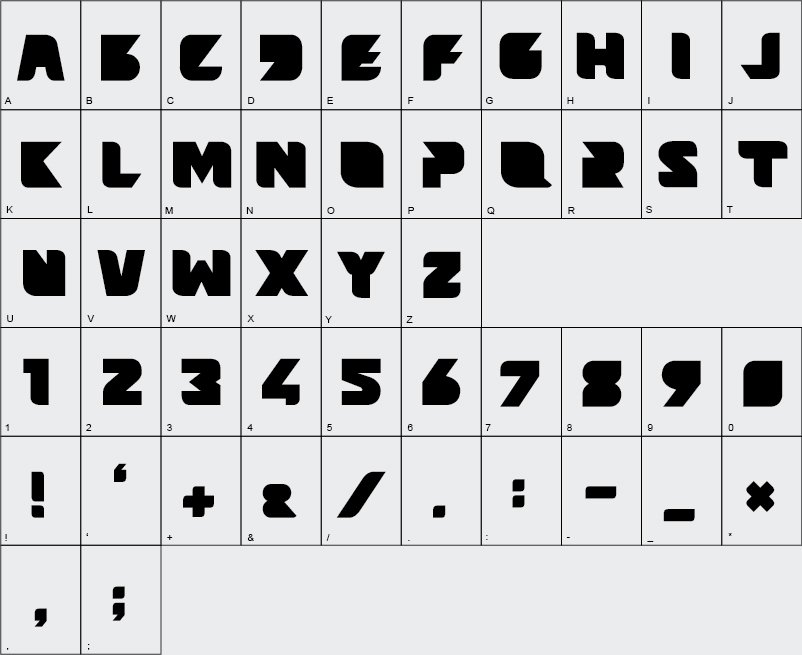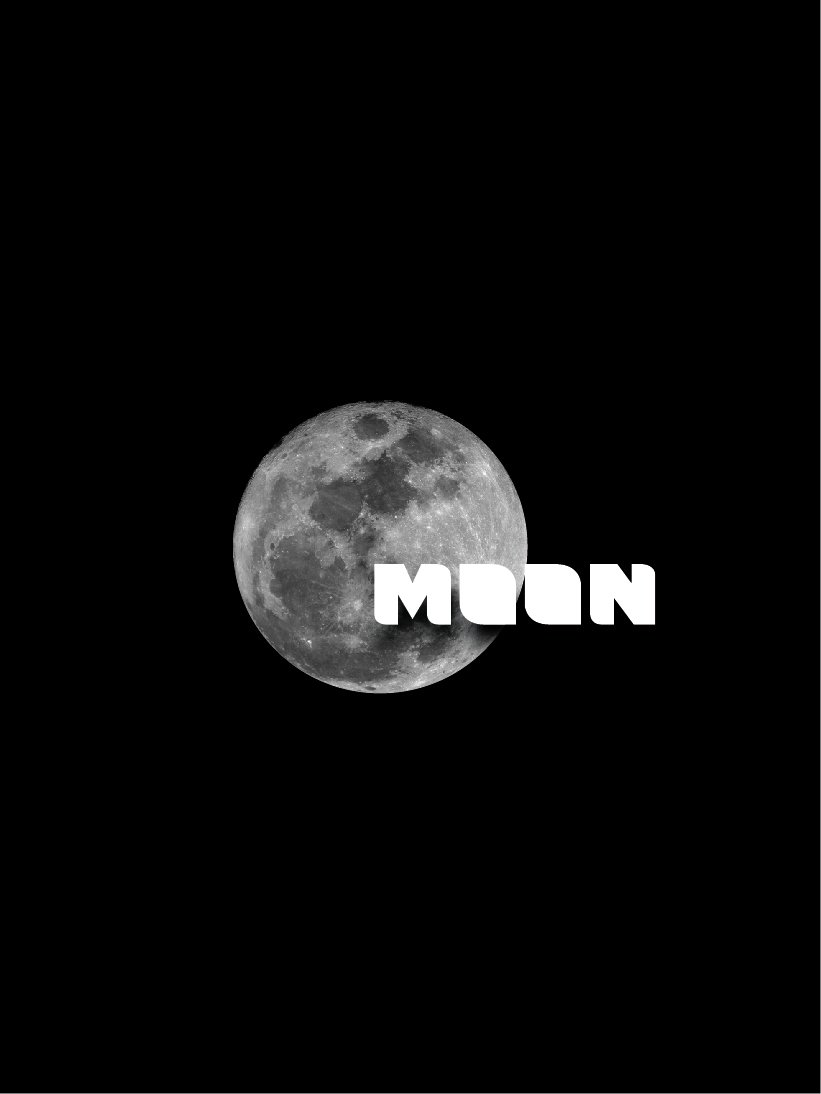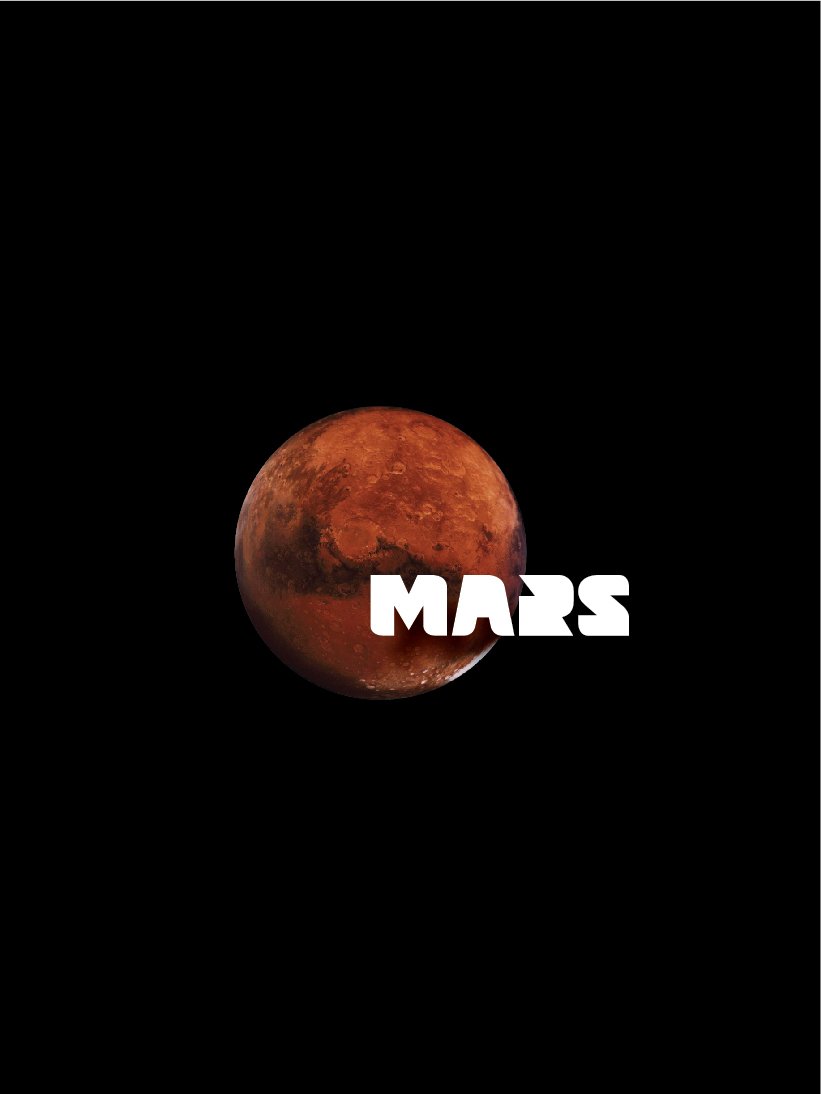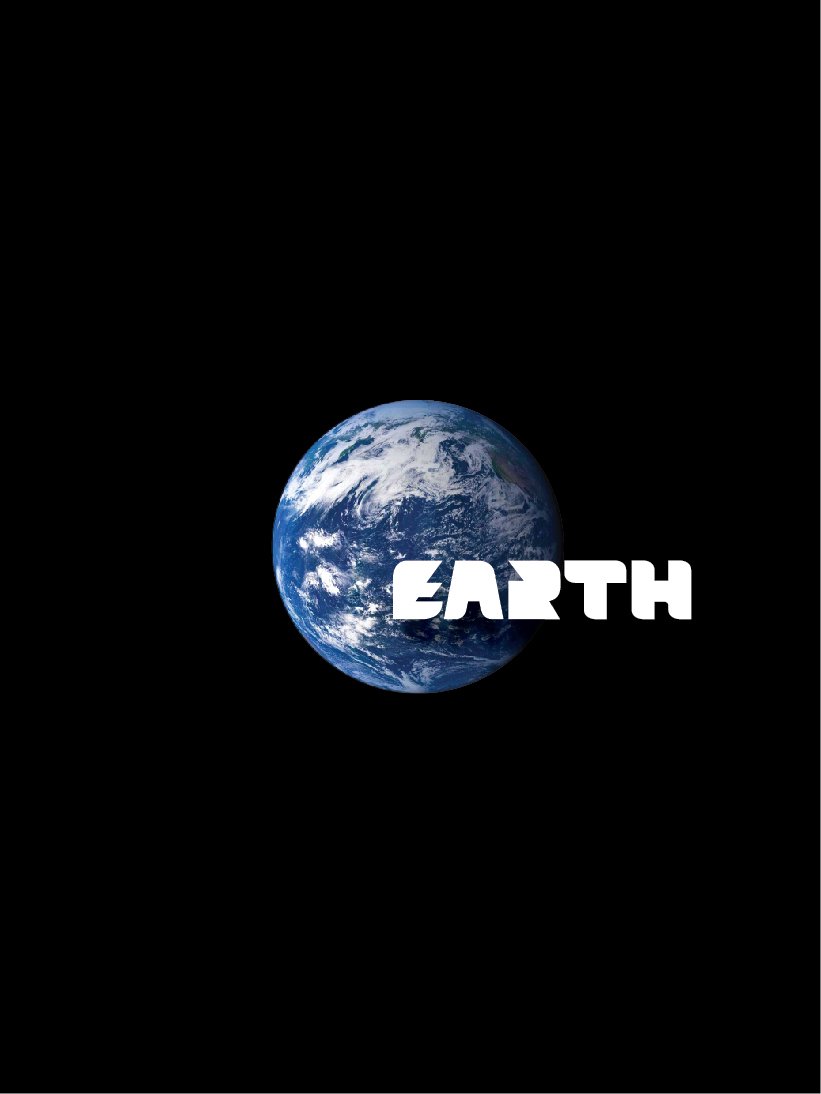
Download Beams, a futuristic font designed to give a modern and assertive style to your projects. It works great for visual identities, posters, web interfaces and any creation that needs a clean, contemporary aesthetic.
About the font
Beams is distinguished by its geometric shapes and its technical aspect. It brings a strong character to titles, logos and graphic visuals. It’s an ideal font for creative projects that seek a controlled futuristic style.
• Modern style with a strong visual personality.
• Solid readability in large format.
• Usable in branding, web design, print and motion.